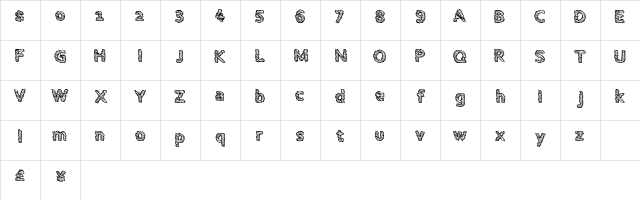
TrapMusic Regular Free Font
TrapMusic Regular
Foundry: Xerographer Fonts
Designer: Xerographer Fonts Max Infeld
Design Context for TrapMusic
TrapMusic is a composed and adaptable typeface that performs quietly and consistently across a wide range of design contexts.